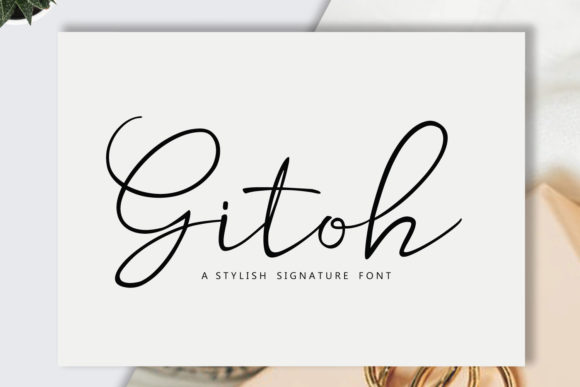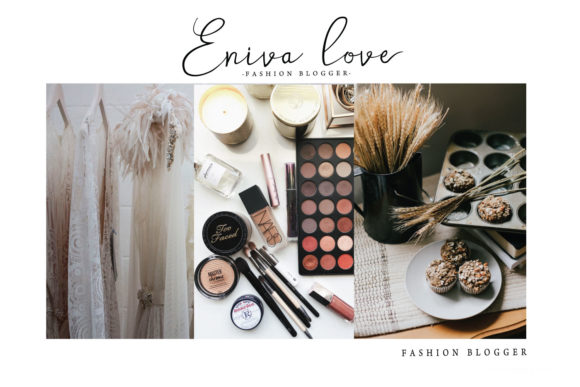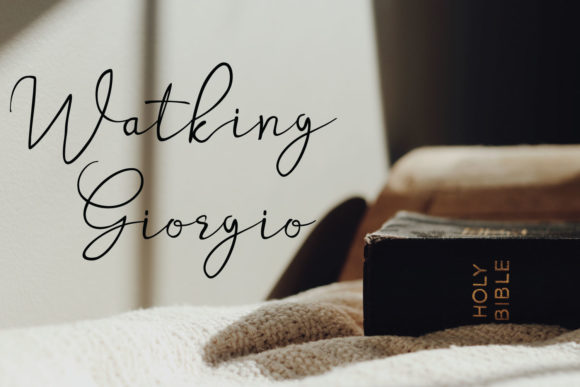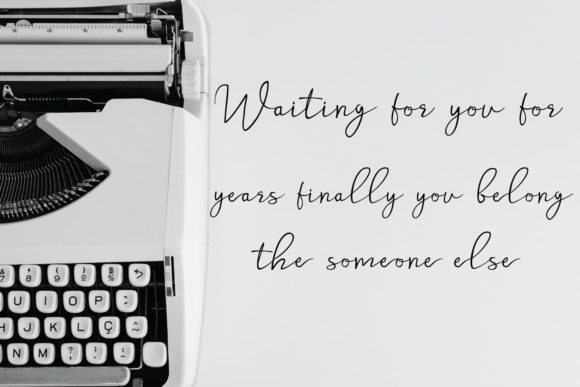
About Gitoh Font
Gitoh is a thin and elegant handwritten font. This font that is suitable for branding, signature, wedding invitation, promotion, product packaging, and other needs.